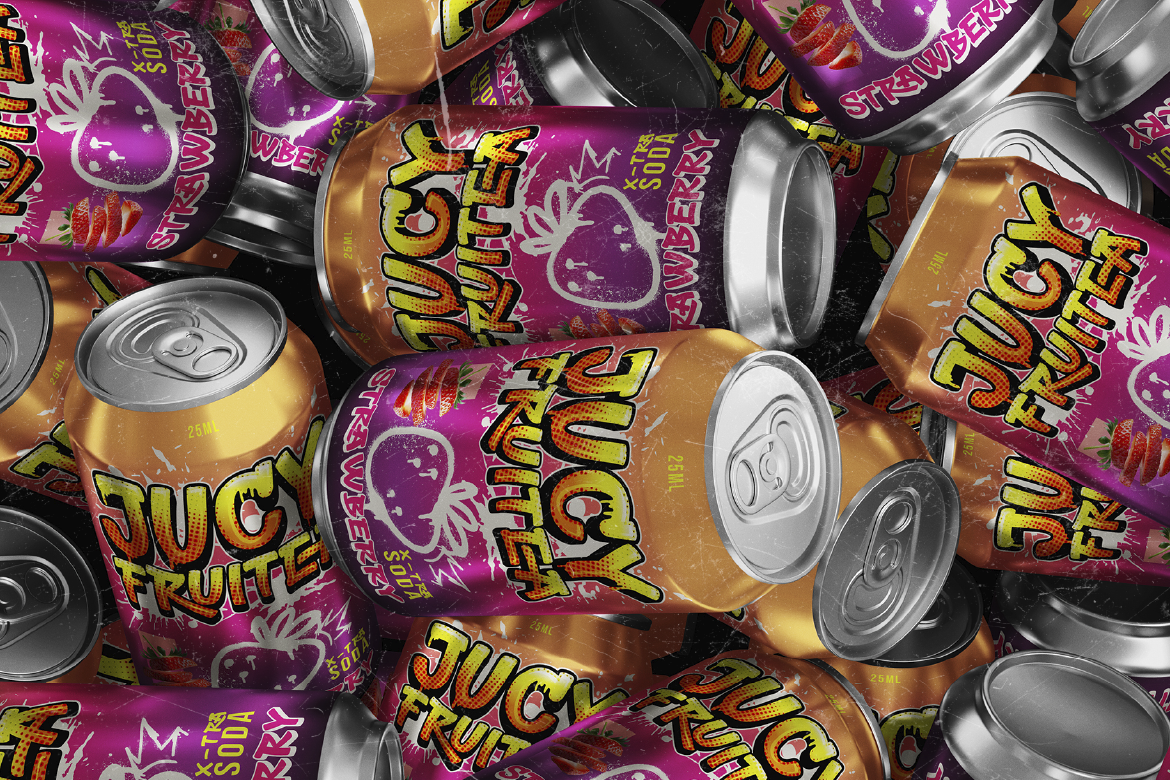
The Designer’s Guide to Using Fonts in AI-Powered Branding Projects
AI has made it easier than ever to spin up a brand visual identity quickly. Logo concepts, color palette suggestions, mockup generation, social media templates — tools like Adobe Firefly, Looka, Canva AI, and others can produce brand-ready assets in a fraction of the time it used to take.
But here’s what experienced designers know: the brands that look truly distinctive aren’t the ones that let AI choose everything. They’re the ones where a human made deliberate, strategic choices — especially about typography.
Here’s how to approach fonts in AI-powered branding projects the right way.
Start With Brand Strategy, Not the AI Tool
Before you open any AI branding tool, get clear on the fundamentals:
• Who is this brand for? Age, values, lifestyle, aesthetic preferences of the target audience.
• What does this brand stand for? Its personality, tone, and key differentiators.
• What emotional response should it trigger? Trust? Excitement? Calm? Aspiration?
These answers determine your typographic direction. AI tools can generate beautiful assets, but they can’t answer strategic questions — only you (or your client) can.
Once you have clear answers, you’re ready to select fonts before you start generating assets — not after.
Choose Your Fonts Before Generating AI Assets
This is counterintuitive for most people who are new to AI-powered branding, but it’s important: select your fonts first, then use those fonts to guide the style of your AI-generated assets.
Why? Because fonts carry strong style signals. If you’ve chosen an elegant high-contrast serif for the brand, you know to generate visuals that feel refined, editorial, and premium. If you’ve chosen a bold, chunky display font, you generate visuals that feel energetic, bold, and attention-grabbing.
Your font choice is a creative brief for your AI prompts.
Building a Typography System for AI-Powered Brands
Even in an AI-assisted branding project, you still need a clear typography system:
Primary font (brand font) — The typeface most closely associated with the brand. Used in the logo, primary headlines, and key brand touchpoints. Should be distinctive and personality-driven.
Secondary font (supporting font) — Used for subheadings, callouts, and secondary design elements. Should complement the primary font without competing.
Body font — Clean, highly readable, used for longer text content. Often a simple sans-serif or readable serif that works at small sizes.
AI tools can suggest fonts for this system, but treat their suggestions as starting points — not final decisions. Evaluate every suggestion against your brand strategy.
How to Use AI Tools in Each Stage of a Font-Driven Branding Project
Discovery phase — Use AI tools to rapidly explore visual directions. Generate multiple mood boards or logo concepts to identify which aesthetic feels most aligned with the brand strategy. Note which typographic styles feel right for each direction.
Font selection phase — Research and select real fonts (from reputable sources like ArtisanFont) that align with the chosen direction. Don’t use fonts suggested by AI tools unless you’ve verified their licensing and suitability.
Asset generation phase — Use your selected fonts to guide AI prompts. Describe the typographic personality in your prompts to ensure generated visuals feel cohesive with your font system.
Refinement phase — Apply your fonts to AI-generated assets in Illustrator, Photoshop, or Figma. This is where the brand really comes together — human typography applied to AI-generated foundations.
Font Licensing in AI Branding Projects
One often-overlooked issue in AI-powered branding: font licensing for commercial use. When you’re building a brand identity for a client, the fonts you use need commercial licensing — and in many cases, the client (not just the designer) needs to hold that license.
Always verify:
• The font is licensed for commercial use
• The license covers logo/trademark use if the font will be part of a logo
• The client has or can obtain their own license for ongoing use
Fonts from reputable sources like ArtisanFont come with clear commercial licensing options, making this straightforward to manage.
Final Thoughts
AI-powered branding tools are genuinely transformative — they accelerate the process, open up creative exploration, and make high-quality asset generation accessible to more people than ever. But the brands that stand out from AI-generated noise are the ones where human typographic judgment is still firmly in the loop.
Choose your fonts deliberately. Build a system. Use AI to generate the visuals that bring that system to life — not to replace the strategic thinking behind it.